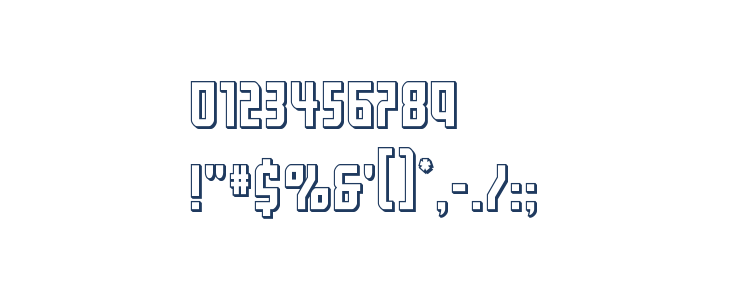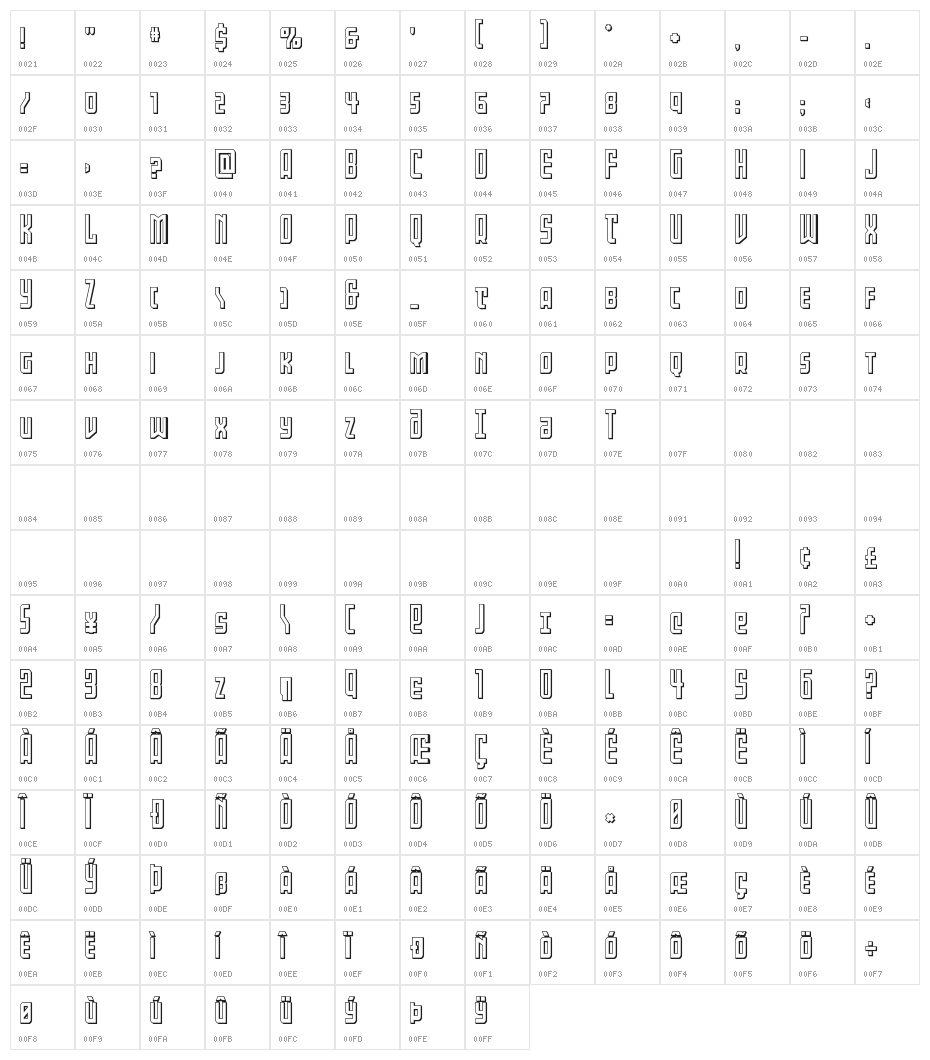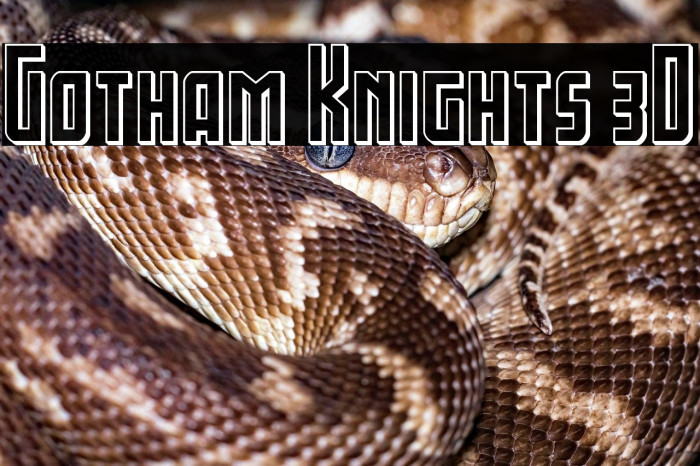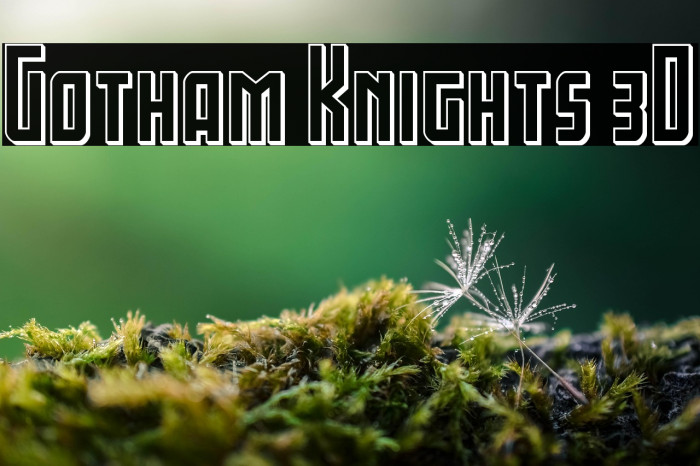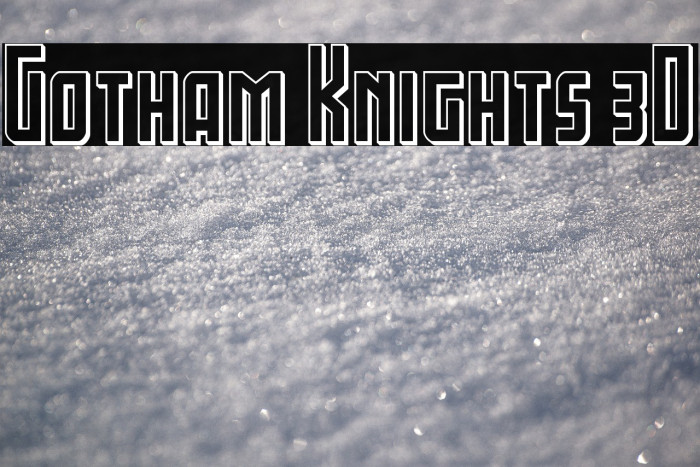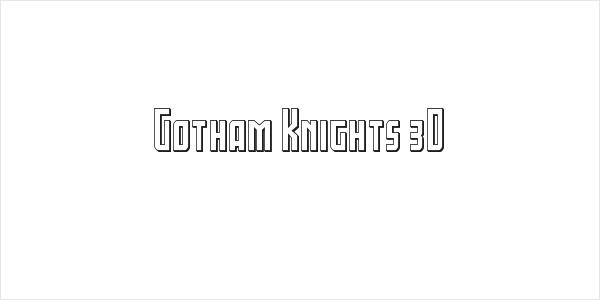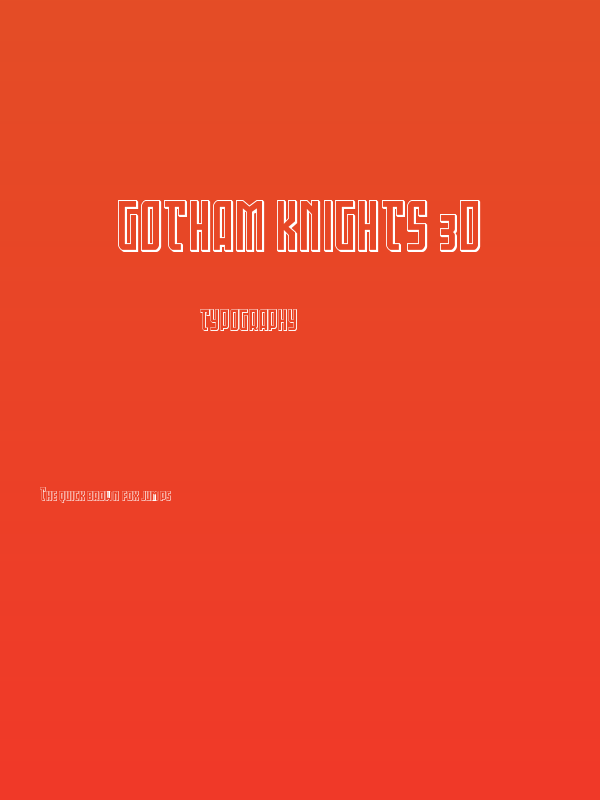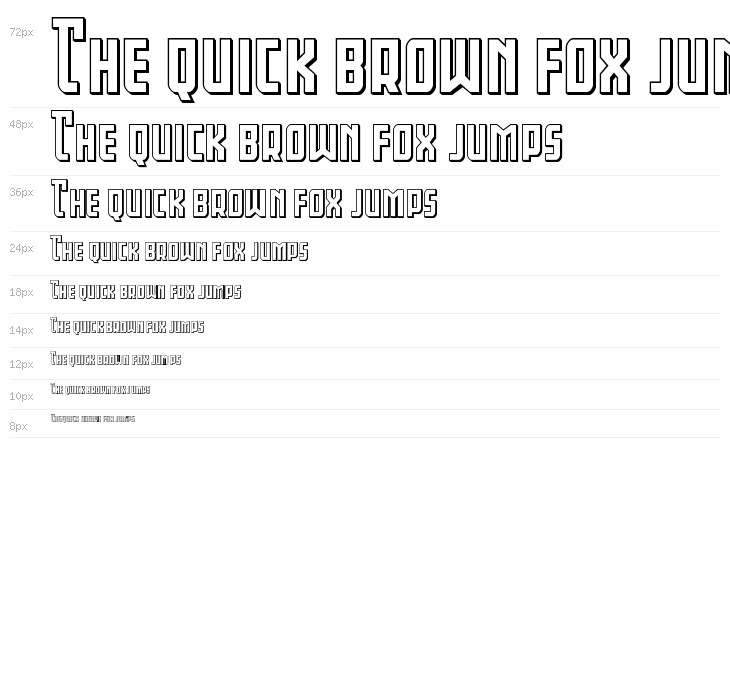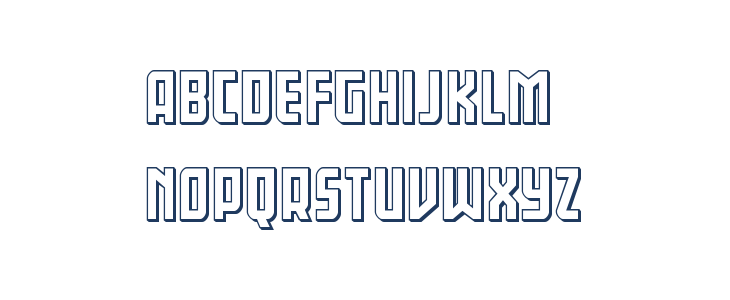
Gotham Knights 3D Font
Gotham Knights 3D Description
This font features a bold, three-dimensional design with a strong geometric structure. The characters are outlined, giving them a distinctive, shadowed appearance that adds depth and visual interest. The uppercase letters are particularly striking, with sharp angles and a futuristic style. The numbers and special characters maintain this bold, outlined look, ensuring consistency across all glyphs. This font is ideal for projects that require a modern and impactful aesthetic, such as video game titles, posters, or branding materials.
| Proposed Projects | Ideal for video game titles, posters, branding materials, and any project needing a modern, impactful look. |